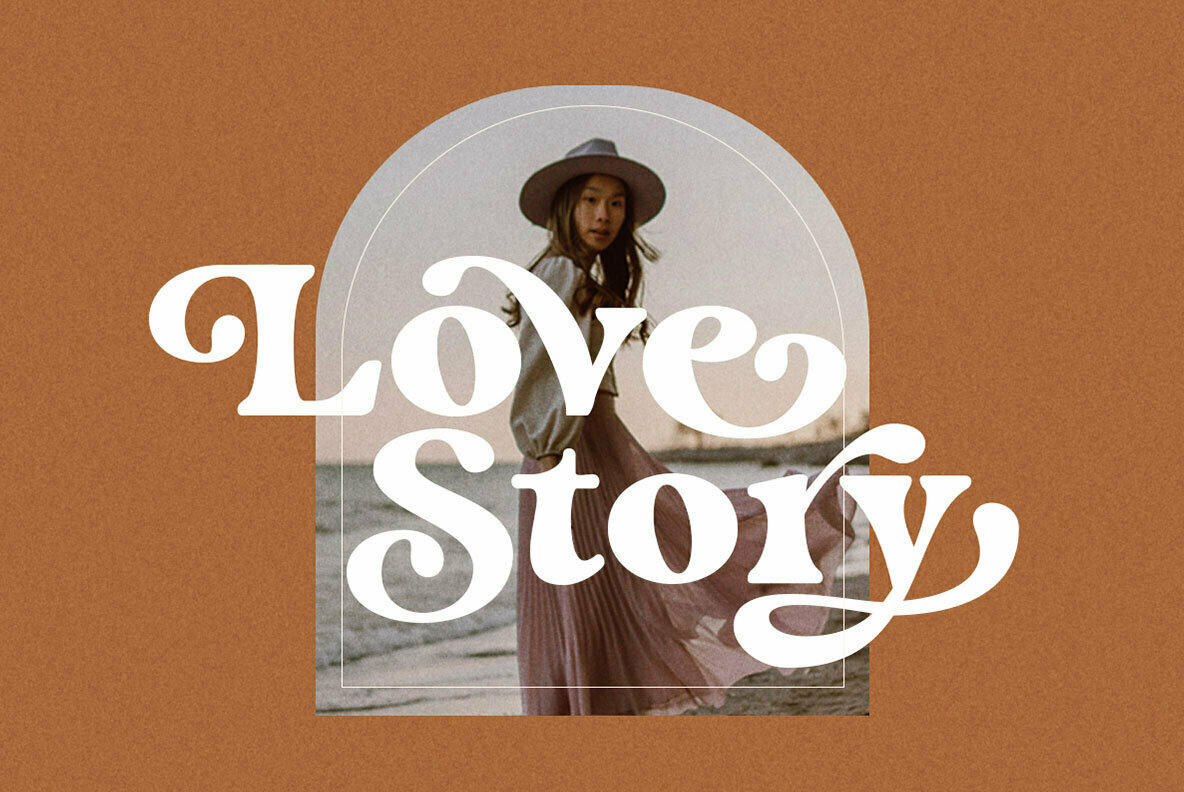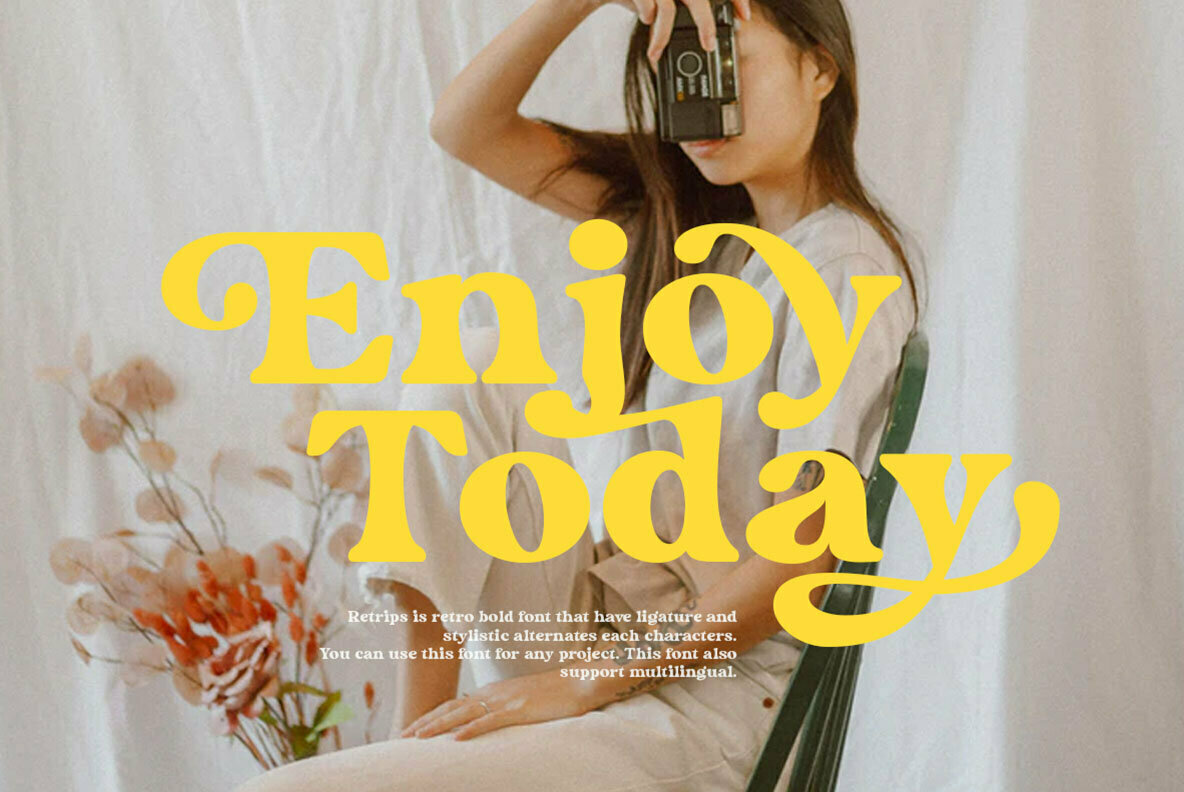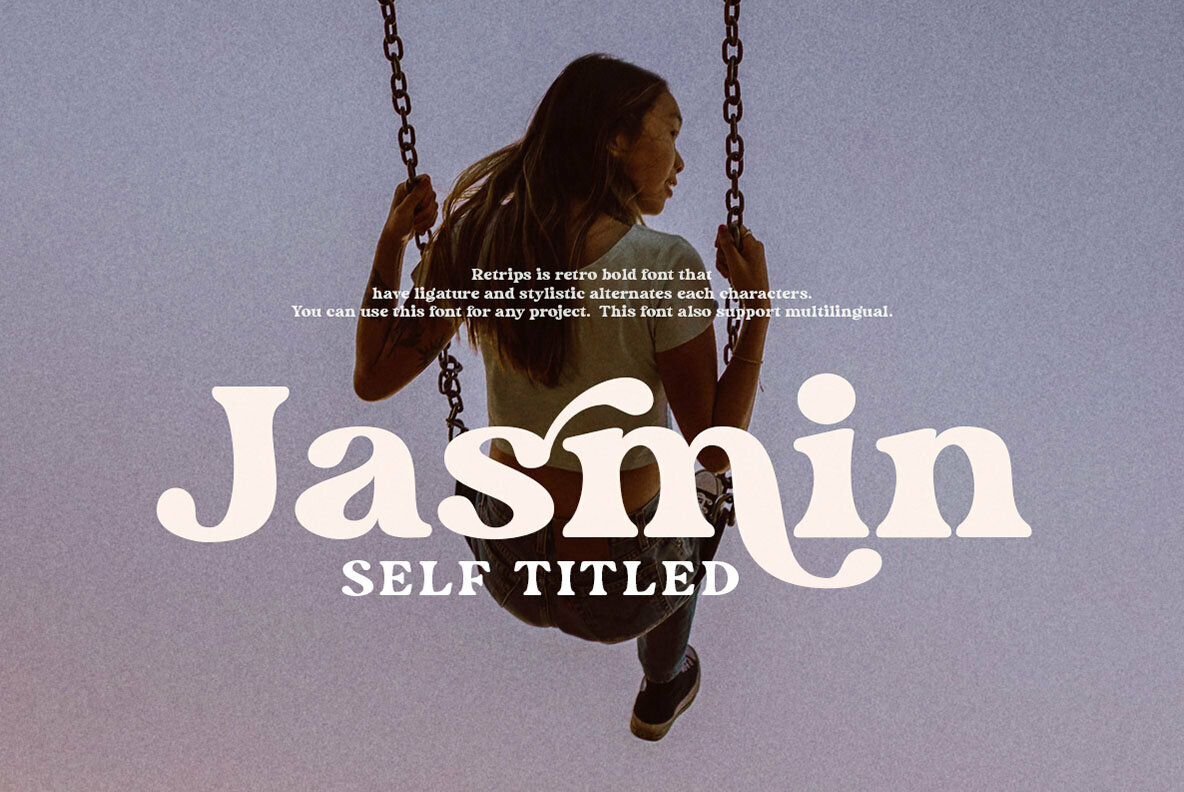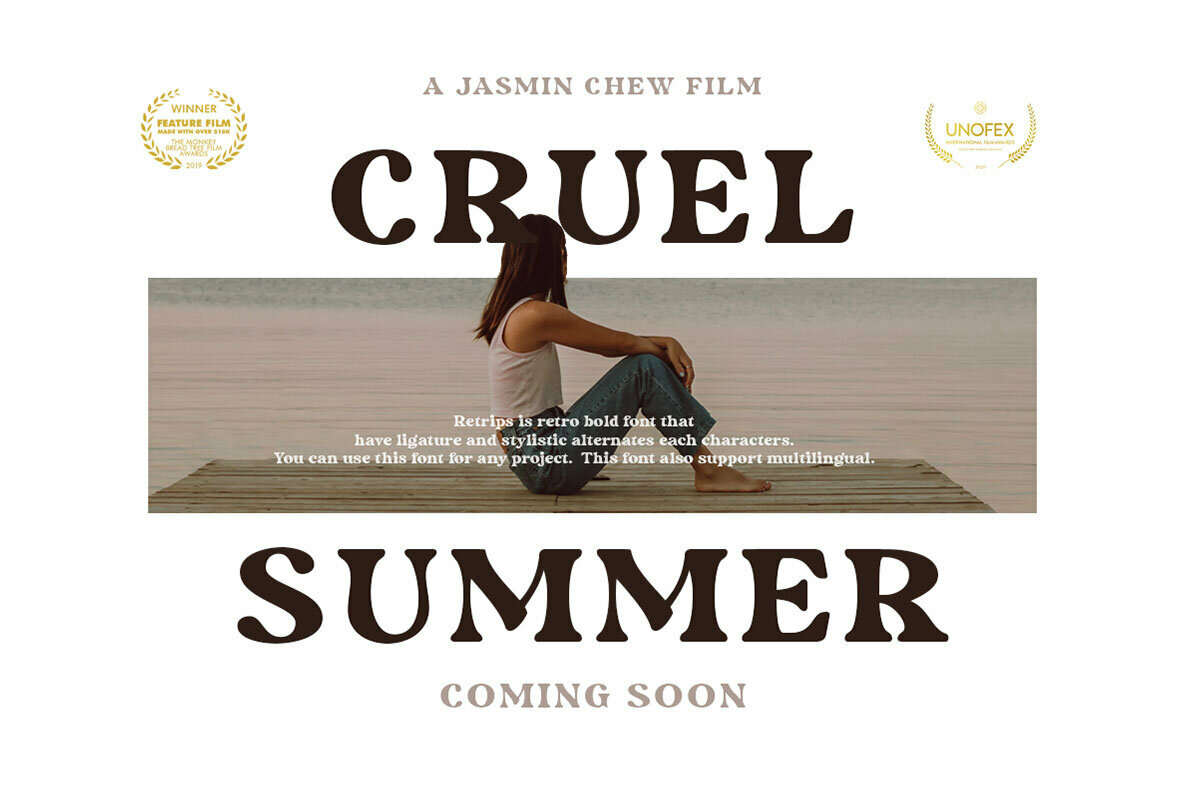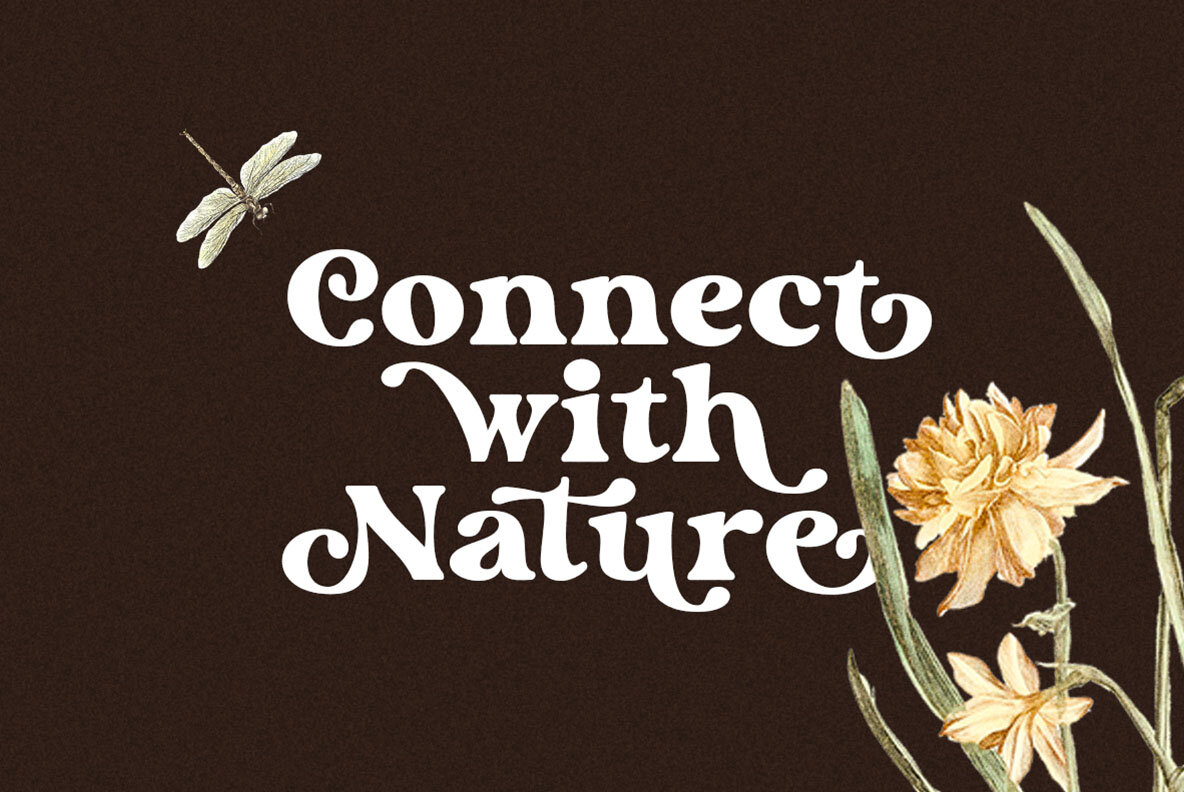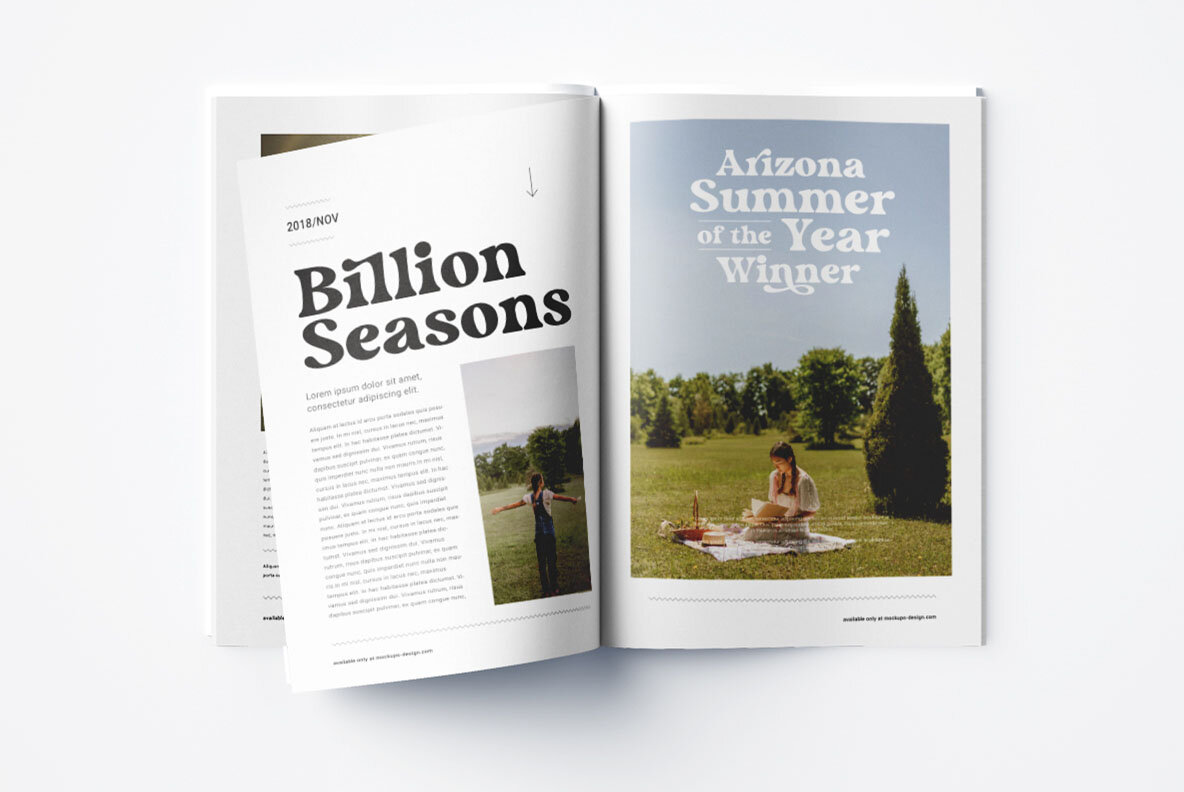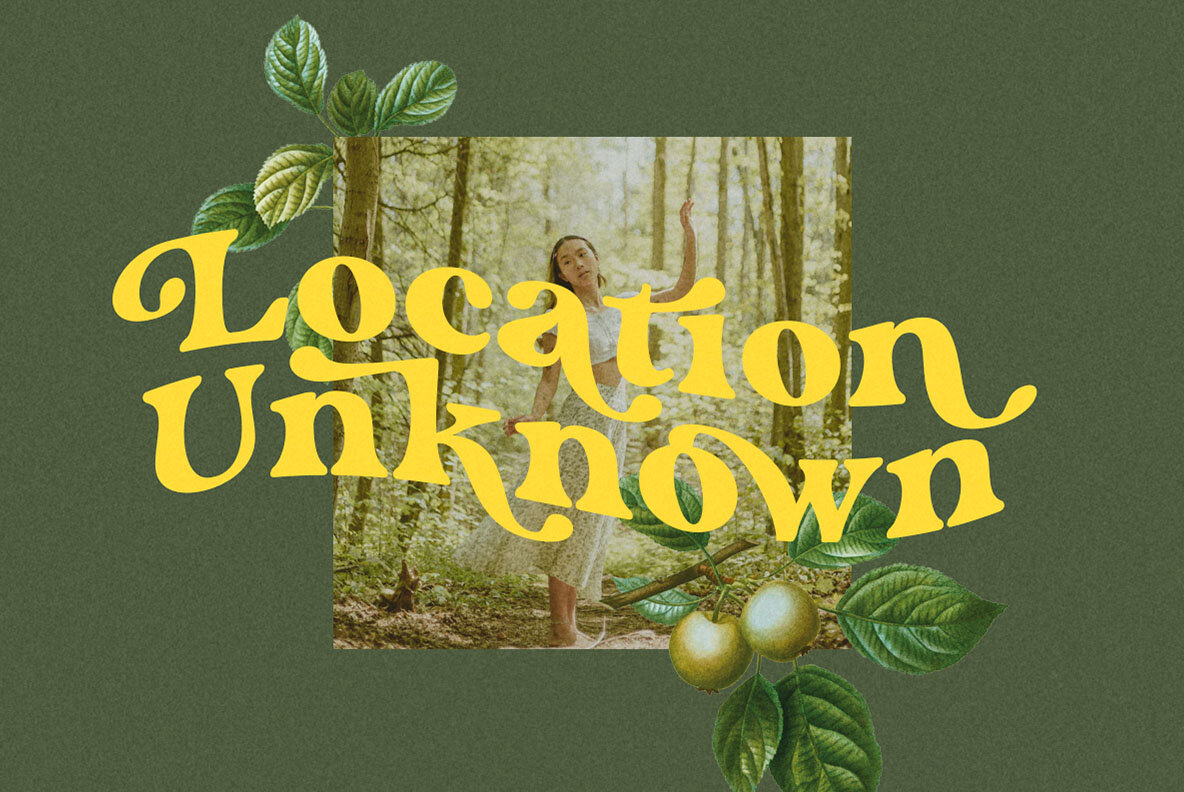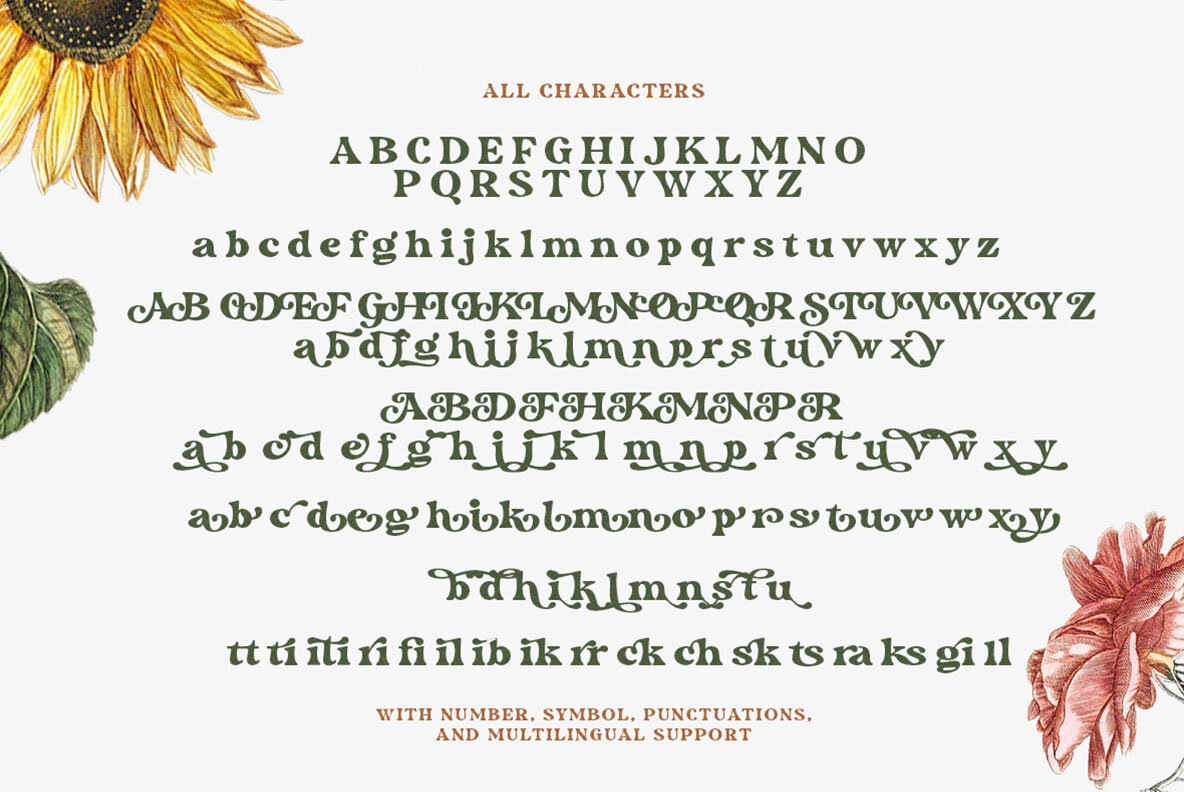
Retrips Font
Retrips Regular
Retrips offers a compelling blend of modern elegance and vintage charm, crafted with bold yet soft serif strokes. This typeface breathes life into any presentation or logo with its assortment of ligatures and alternate characters, setting your designs apart from the crowd. Perfect for posters, events, or social media posts, Retrips adds a chic and retro appeal to your projects.Retrips: Modern Serif with Retro Flair